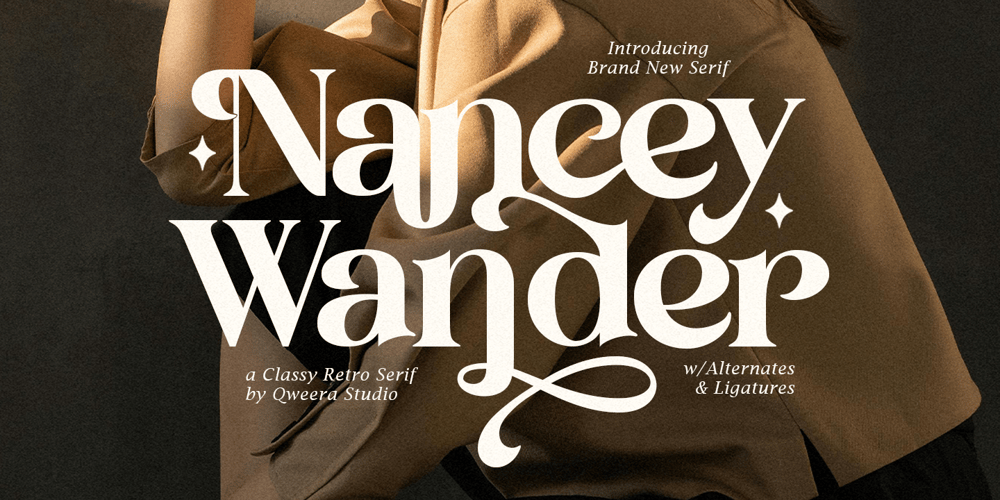
Nancey Wander Font Family was designed by Idhham Cholid Rikzano Yahya and published by Qweera Studio. Nancey Wander contains 2 styles and family package options. Nancey Wander is a classy serif typeface that combines unique bold and thin character transitions, available in both regular and italic styles. This font features stylish alternates and ligatures, offering ultimate flexibility to create designs tailored to your vision effortlessly.Perfect for posters, magazines, and print designs, Nancey Wander brings a touch of elegance and sophistication to any project. Its timeless appeal and versatile style make it an excellent choice for creating visually stunning layouts with ease.Elevate your designs with Nancey Wander – where creativity meets elegance in every detail!Here’s what you get: Regular & Italic All Multilingual symbol Opentype features ( ligature, alternate ) Accessible in the Adobe Illustrator, Adobe Photoshop, Adobe InDesign, even work on Microsoft Word. PUA Encoded Characters – Fully accessible without additional design software. Multilingual character supports : (Afrikaans, Albanian, Catalan, Croatian, Czech, Danish, Dutch, English, Estonian, Finnish, French, German, Hungarian, Icelandic, Italian, Lithuanian, Maltese, Norwegian, Polish, Portuguese, Slovenian, Spanish, Swedish, Turkish, Zulu)Follow my shop for upcoming updates, and for more of my work, If you need a custom license or have questions please visit our website: www.shakirastudio.comThank you!Qweera Studio